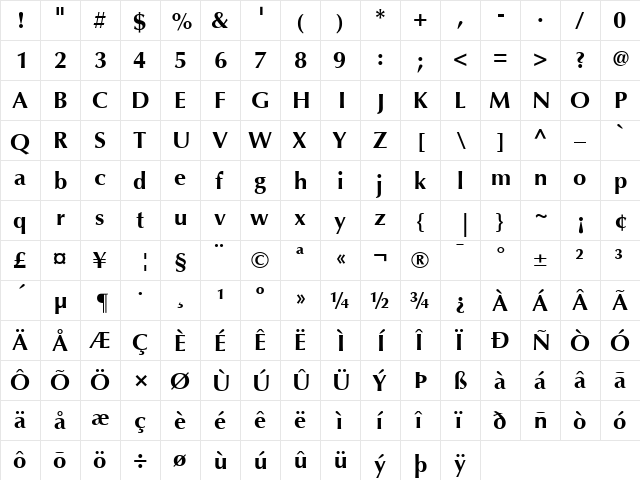
Optima Bold
Design Context for Optima Typeface
Optima offers clean, dependable letterforms without strong stylistic allegiance, making it a practical choice for designers who need flexibility. The heavy weight commands attention and anchors typographic hierarchies.
Pro Tip: Pair Optima with a font of contrasting weight or personality to build a more expressive typographic hierarchy.